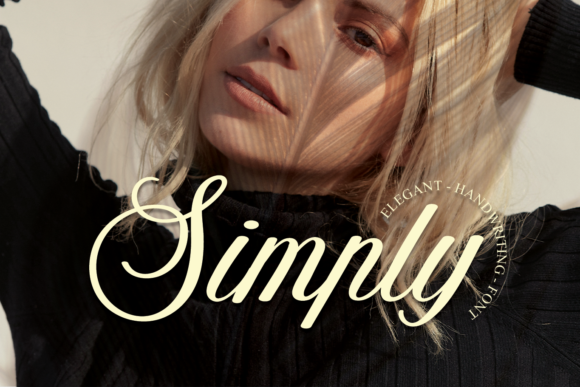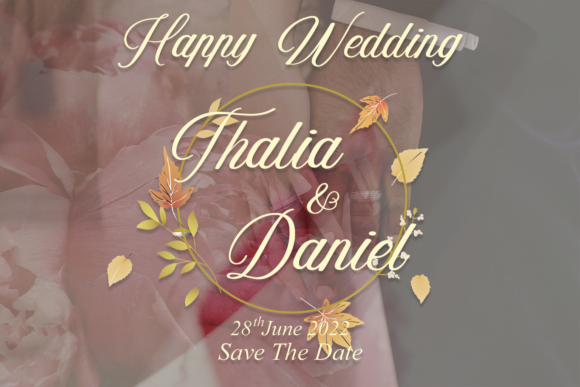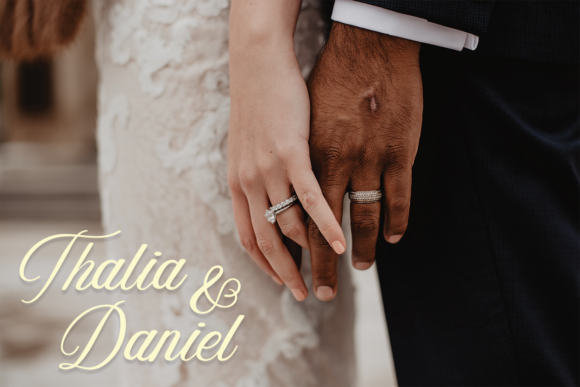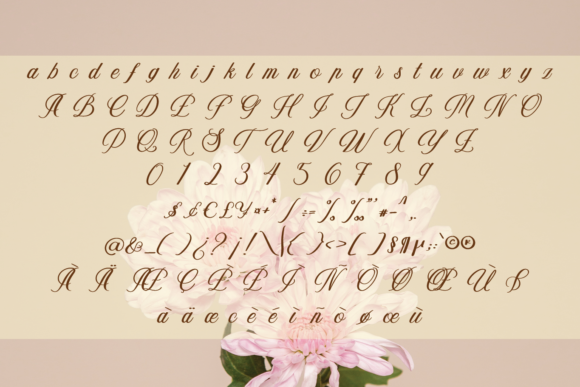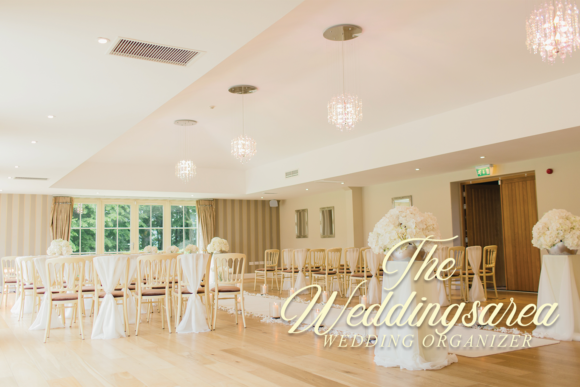
Simply Font
About Simply Font
Simply is a fashionable script font. It is neatly crafted and highly detailed. Whatever the topic, Simply will be a wonderful asset to your fonts’ library, as it has the potential to enhance any creation.